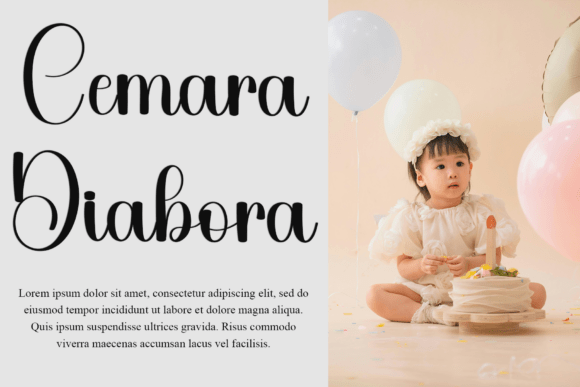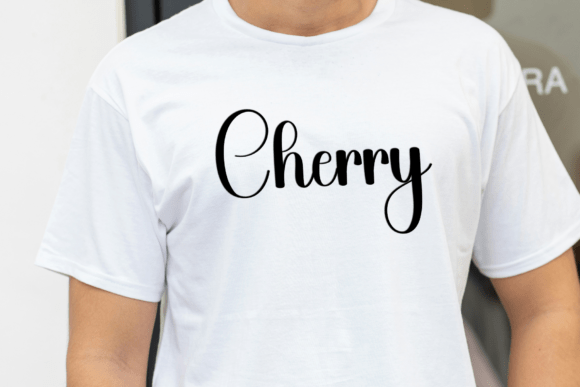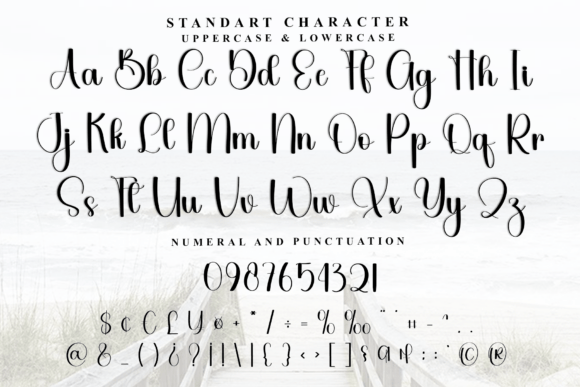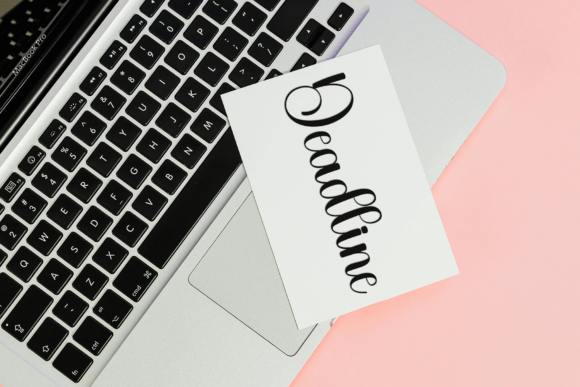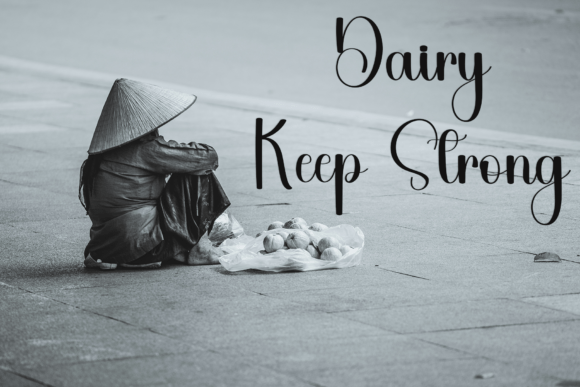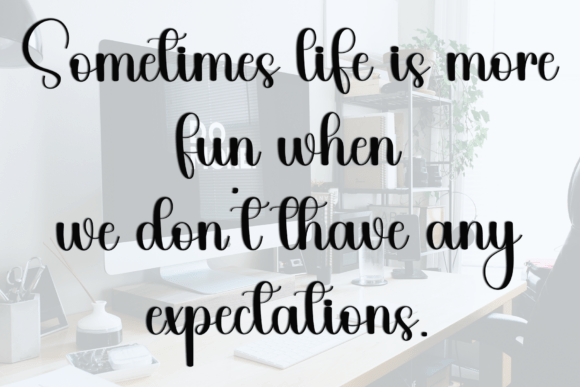
Introducing Beauty Angel Font: Elevate Your Designs with Timeless Elegance
Are you on the hunt for a font that adds a touch of sophistication and charm to your designs? Look no further than the Beauty Angel Font. This lovely and timeless handwritten font is perfect for creating eye-catching logos, branding materials, and quotes that leave a lasting impression. With its unique and beautiful touch, Beauty Angel Font is sure to make your design come alive!
Handwritten fonts have a way of adding a personal touch to any design. They evoke a sense of warmth, elegance, and sophistication that is hard to replicate with generic fonts. Beauty Angel Font is a stunning example of a handwritten font that can elevate your designs to new heights. Its flowing curves and delicate lines make it perfect for creating beautiful branding materials, logos, and quotes that stand out from the crowd.
What Makes Beauty Angel Font Special?
So, what sets Beauty Angel Font apart from other fonts? Here are just a few features that make it a standout choice for designers and crafters:
- Unique and Beautiful Touch: Every letter in Beauty Angel Font has a unique and beautiful touch that adds a touch of elegance to your designs.
- Timeless Appeal: This font has a timeless quality that ensures your designs will remain stylish and relevant for years to come.
- Versatile: Beauty Angel Font is perfect for a wide range of design applications, from logos and branding materials to quotes and social media graphics.
- Easy to Read: Despite its elegant and cursive nature, Beauty Angel Font is easy to read, making it perfect for body text and headlines.
Beauty Angel Font is a dream come true for designers and crafters who want to add a touch of elegance and sophistication to their work. Whether you’re creating:
- Logos: Use Beauty Angel Font to create stunning logos that capture the essence of your brand.
- Branding Materials: From business cards to brochures, Beauty Angel Font is perfect for creating beautiful branding materials that leave a lasting impression.
- Quotes and Social Media Graphics: Add a touch of elegance to your quotes and social media graphics with Beauty Angel Font.
Tips for Using Beauty Angel Font
Here are a few tips for getting the most out of Beauty Angel Font:
- Pair with Neutral Backgrounds: Beauty Angel Font looks stunning against neutral backgrounds, such as white, beige, or light gray.
- Experiment with Colors: Try pairing Beauty Angel Font with different colors to create a unique and eye-catching design.
- Use for Headlines and Titles: Beauty Angel Font is perfect for headlines and titles, but you can also use it for body text for a more elegant look.
In conclusion, Beauty Angel Font is a stunning and versatile handwritten font that is perfect for designers and crafters who want to add a touch of elegance and sophistication to their work. With its unique and beautiful touch, timeless appeal, and versatility, Beauty Angel Font is sure to become a favorite in your design arsenal. So why wait? Download Beauty Angel Font today and start creating beautiful designs that leave a lasting impression!